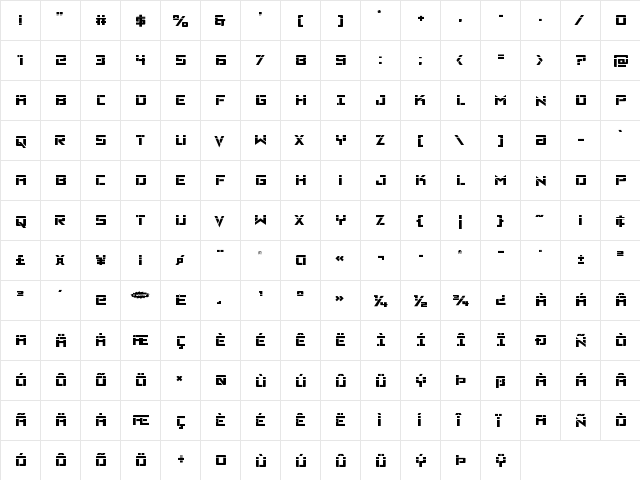
Viking Squad Laser Regular
Design Context for Viking Squad Laser Typeface
Viking Squad Laser is a composed and adaptable typeface that performs quietly and consistently across a wide range of design contexts.
Pro Tip: Use Viking Squad Laser in both headline and body roles to test its range before committing to a single application.